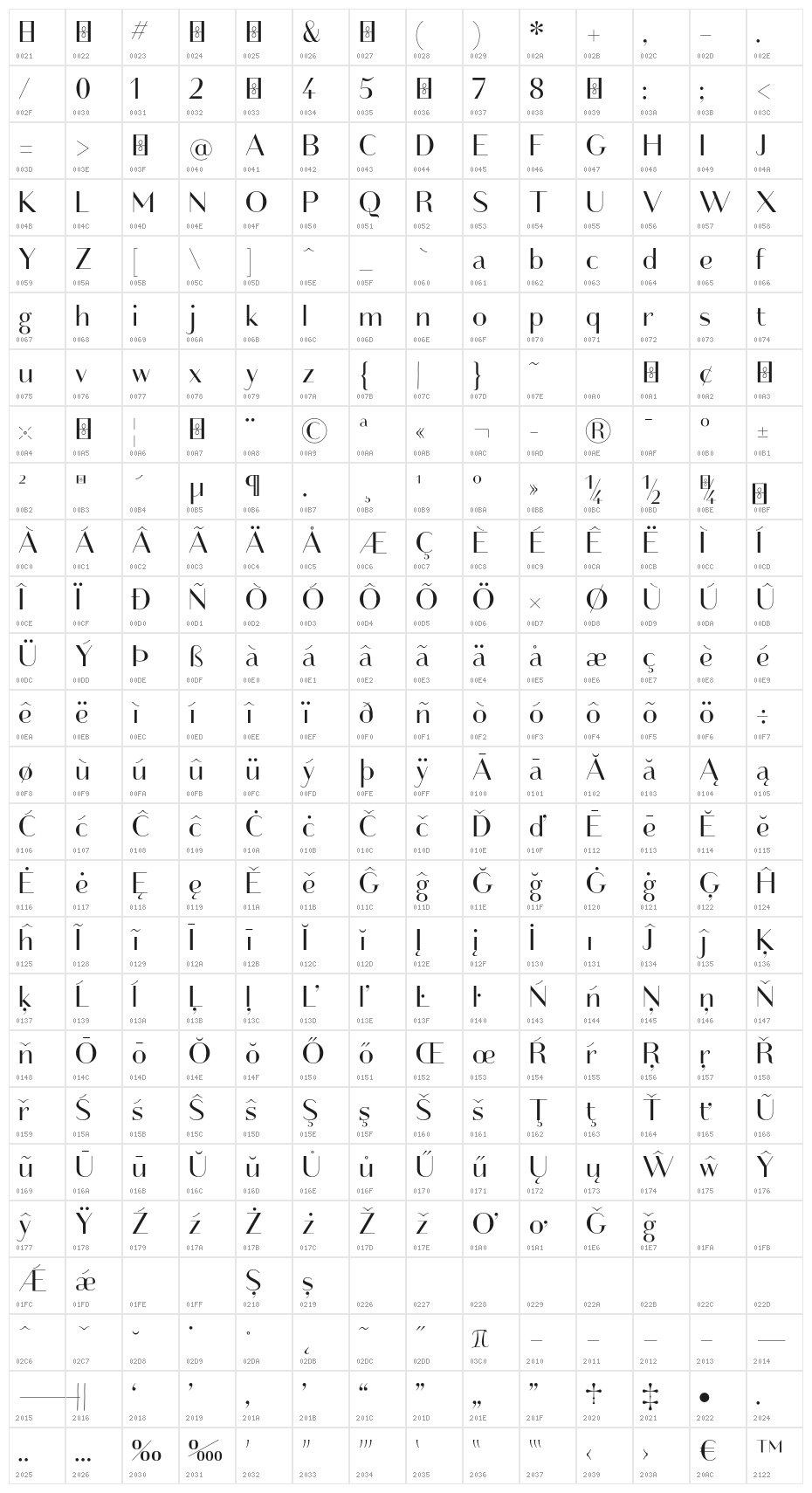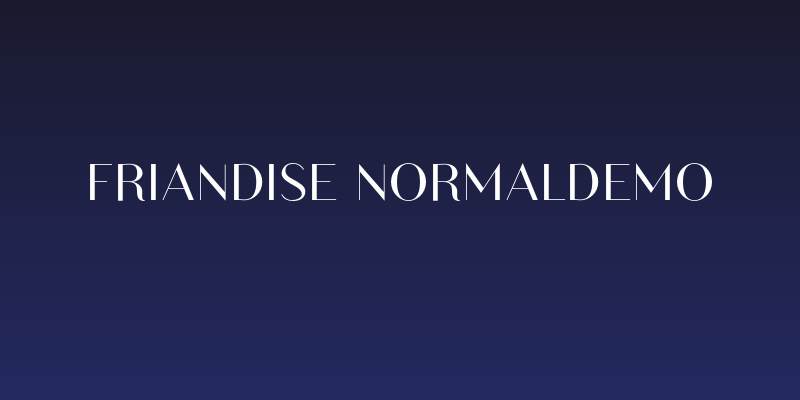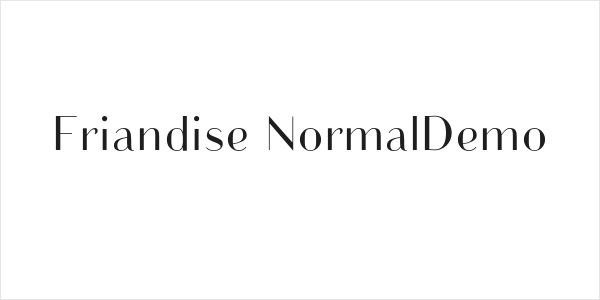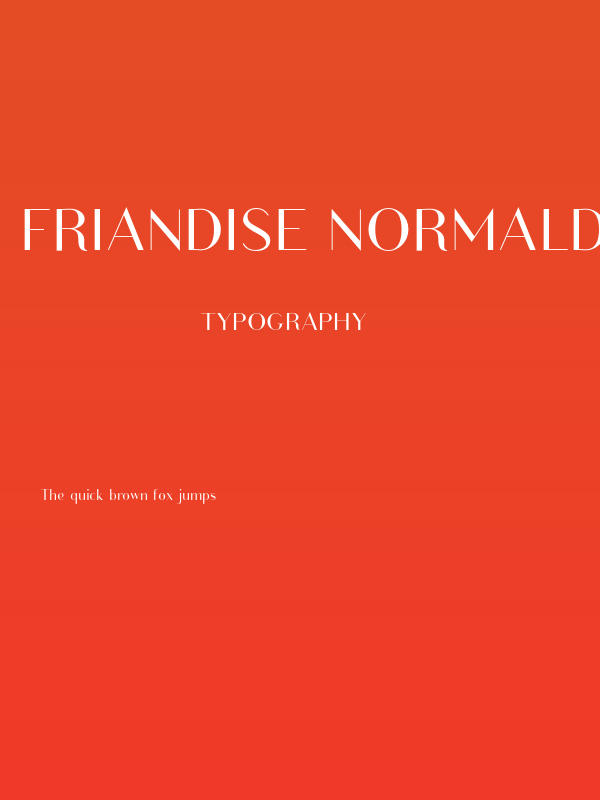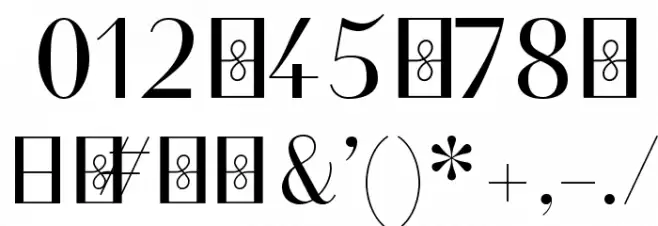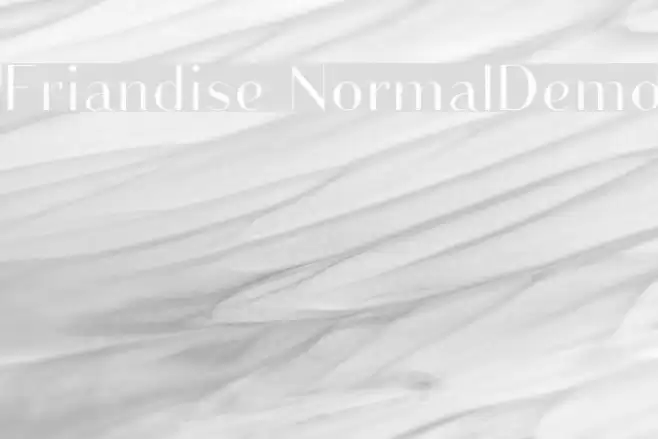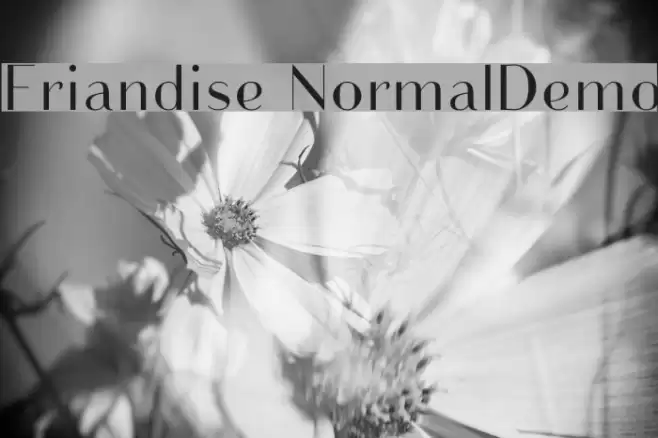
Friandise NormalDemo Font
Friandise NormalDemo Description
This font features a modern and elegant design with a high contrast between thick and thin strokes, giving it a sophisticated and stylish appearance. The uppercase letters are tall and slender, while the lowercase letters maintain a consistent flow with subtle curves. The numerals are distinct and clear, complementing the overall aesthetic. Special characters are uniquely styled, adding a touch of creativity. The font's clean lines and refined details make it suitable for a variety of design applications.
| Use Case | Headlines, Logos, Branding |
| Proposed Projects | Ideal for luxury branding, editorial design, fashion magazines, and high-end product packaging. |